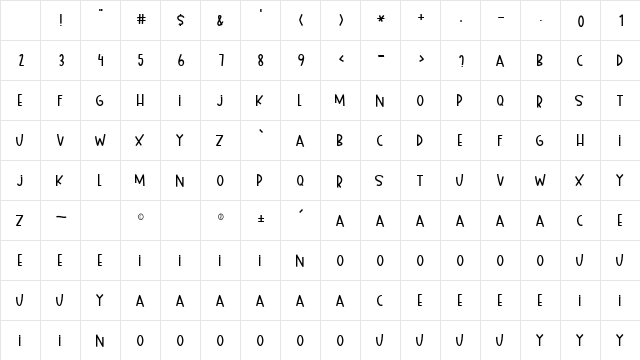
Pinky Latte Display is built around its visual character rather than neutral utility - its distinctive forms are designed to make an impression at display sizes.
Font Pairing: Pair with a clean neutral sans-serif for body copy to let Pinky Latte Display's character lead without overwhelming the composition.
Pro Tip: Use Pinky Latte Display exclusively at display sizes - it was designed to be seen, not read at length. Let a neutral companion handle body copy.